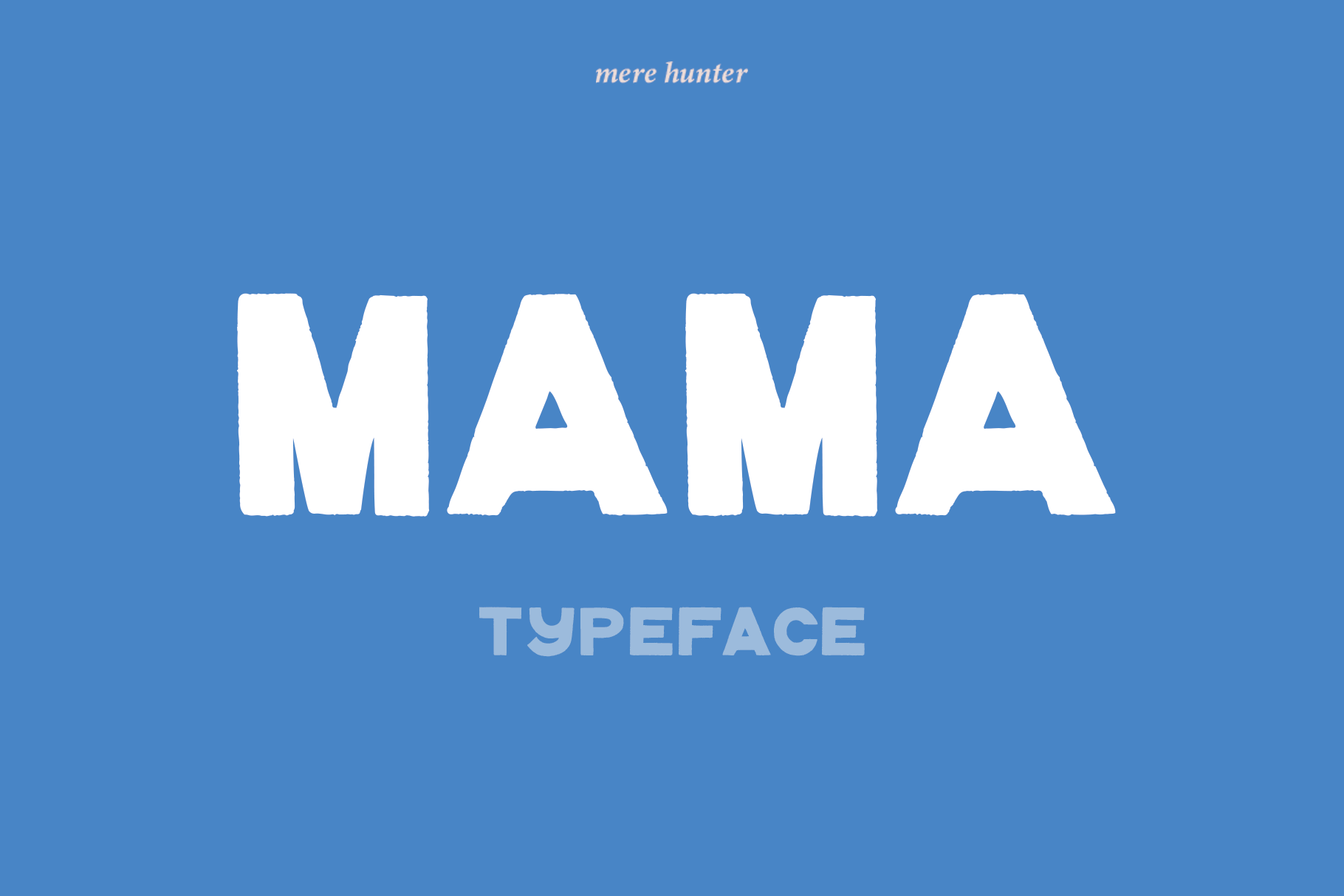
MAMA Typeface
Mama is an all caps font. It’s rough around the edges, raw, strong & bold. You’ll find it's a great design tool for logos, quotes, posters- you name it.